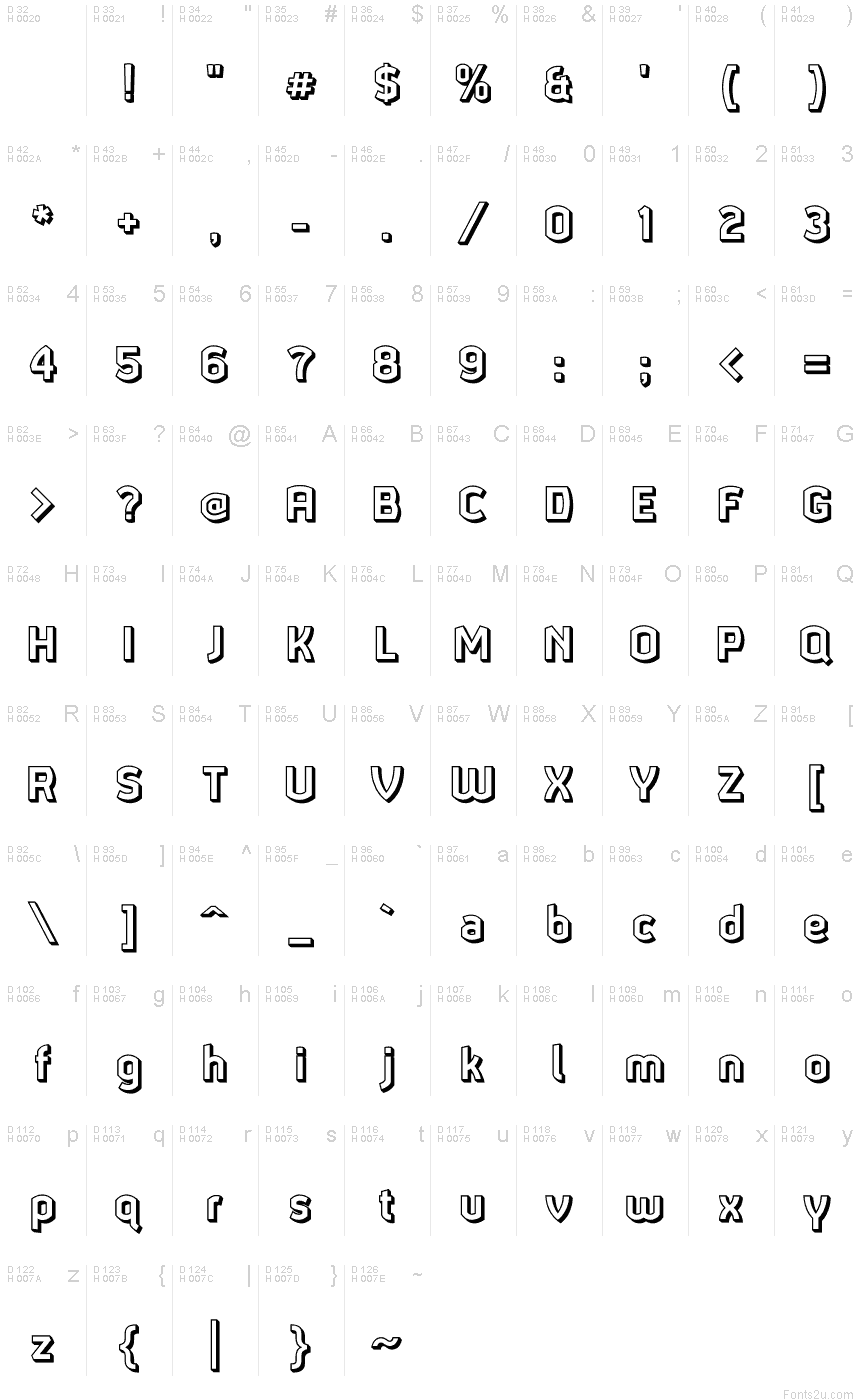
Ganymede 3D by James Arboghast is a free three-dimensional display font built from broad, angular sans serif letters with sharply cut inner shapes. Offset shadows make the letters resemble folded, dimensional signage.
It can turn a title into an illustrated emblem, making it especially apt for game graphics, arcade promotions, music posters, and entertainment branding. The carved-looking faces also suit dimensional logos and product packaging, where the lettering can echo beveled icons, machinery, or hard-edged technical artwork.
Ganymede is a geometric linear font combining industrial & architectural themes.
Chiselled forms and a crisp finish parallel automotive styling & industrial design from the turn of the 21st century, while the straight sides resemble road signage fonts like DIN 1451, and to a lesser degree hand-lettered shop signs in the grotesk style.
Ganymede's clean, discreet forms recall modernist minimalism of the 1920s and 30s sparked by the Bauhaus; in particular the curves supplanting diagonal strokes in the X, Y and V echo Ed Benguiat's emblematic 1970s font---Bauhaus, itself a descendant of Bayer Universal.
Ganymede's structured & monumental capitals suits them to architectural & signage use. The matching small caps fonts were crafted specifically with architectural & titling use in mind. Their neutral geometry also allows them to occupy a more remote typographic terrain---of futuristic & scientific subject matter.
Ganymede 3D is a block shadow variant designed for billboards & signage, free for personal & non-profit use.